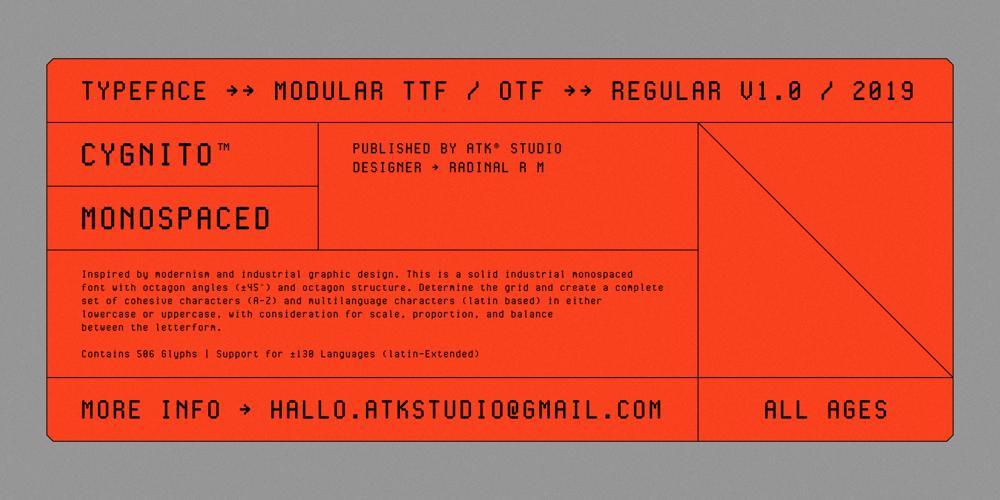
Cygnito Mono Font Family was designed by Radinal Riki and published by ATK Studio. Cygnito Mono contains 1 styles and family package options. Cygnito Mono is the first modular font from ATK Studio. Inspired by modernism and industrial graphic design. This is a solid industrial monospaced font with octagon angles (±45°) and octagon structure. Determine the grid and create a complete set of cohesive characters (A-Z) and multi-language characters (latin based) in either lowercase or uppercase, with consideration for scale, proportion, and balance between the letterform. Contains 506 glyphs and support for ±130 languages. Develop a visual presentation that complements the style and personality of the new typeface. Brings a fresh sensitivity to boring old existing monospaced fonts. Perfect for any purposes such as typographic design, coding, tabular layout, sign, sticker, logos, poster design, magazine, website, and others.